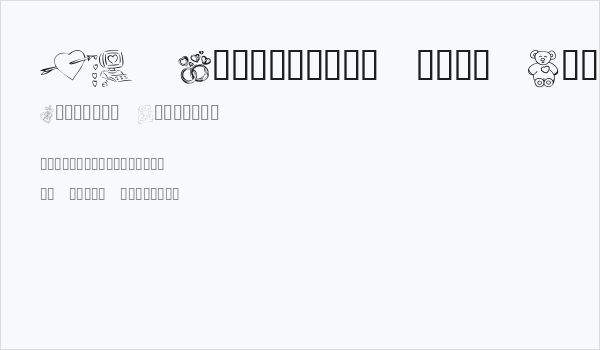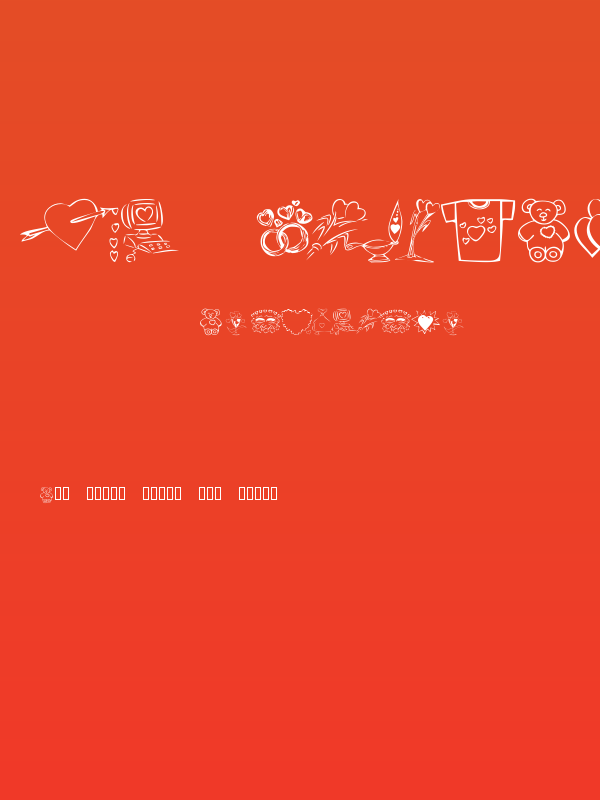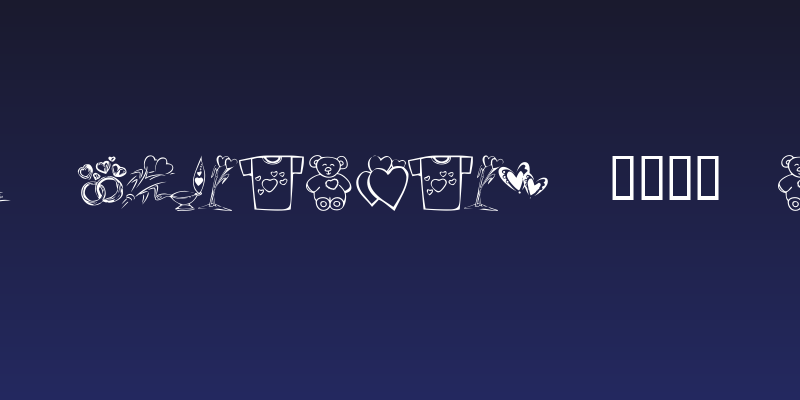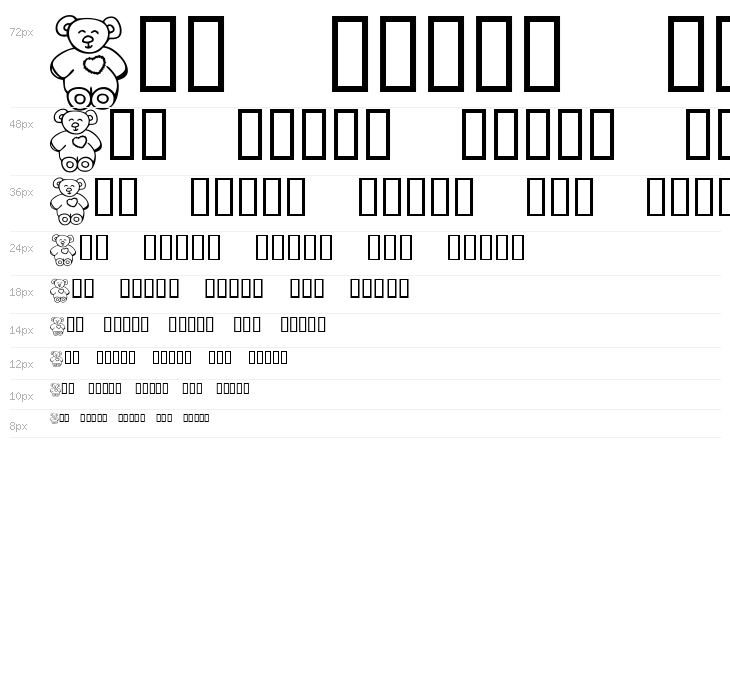
KR Valentines 2006 Ten Font
KR Valentines 2006 Ten Description
This is a decorative font featuring playful and romantic-themed illustrations instead of traditional alphanumeric characters. Each character is represented by a unique Valentine-themed graphic, such as hearts, flowers, and teddy bears, making it ideal for creative and festive designs. The style is whimsical and charming, capturing the essence of love and celebration. The font is perfect for projects that require a touch of romance and creativity, offering a unique way to convey messages through imagery rather than text.
| Use Case | Logos, Invitations, Decorative Text |
| Proposed Projects | Ideal for Valentine's Day cards, romantic event invitations, festive decorations, and creative graphic design projects. |